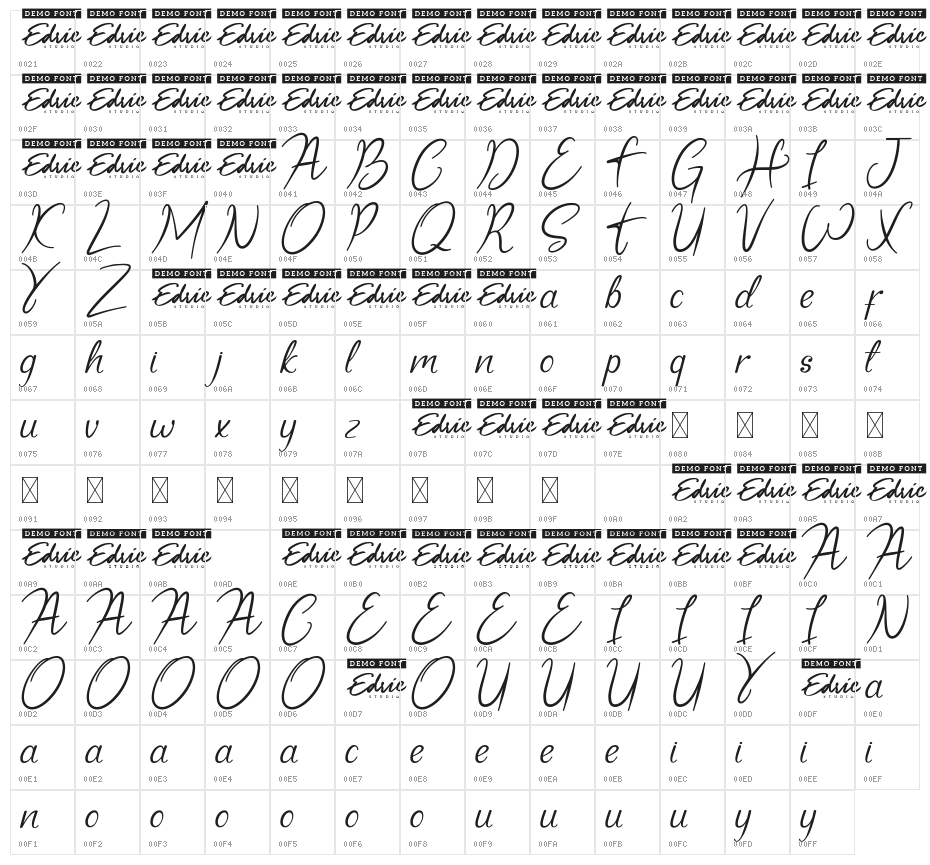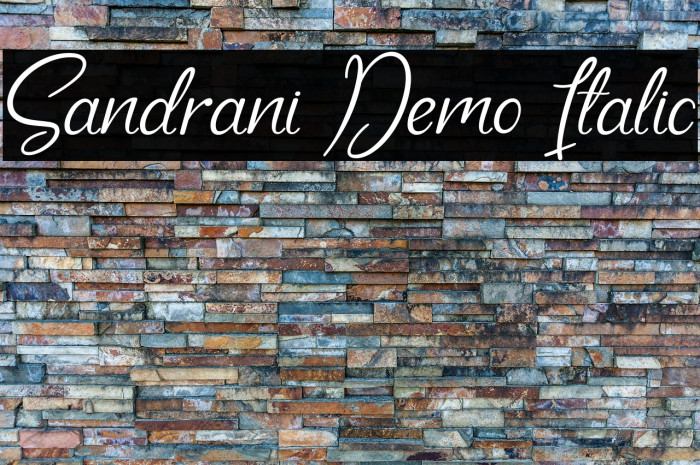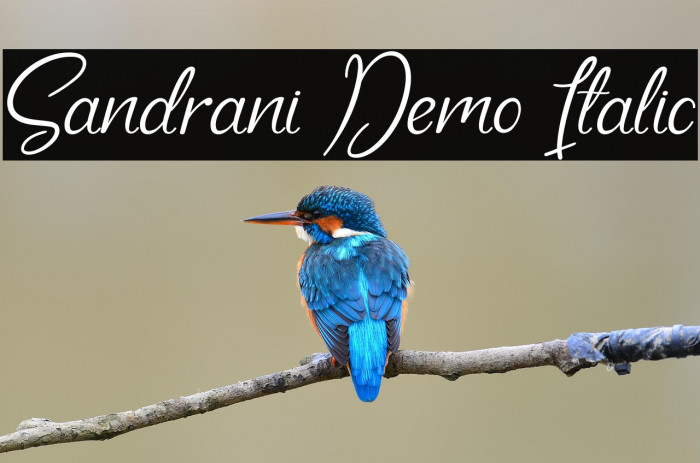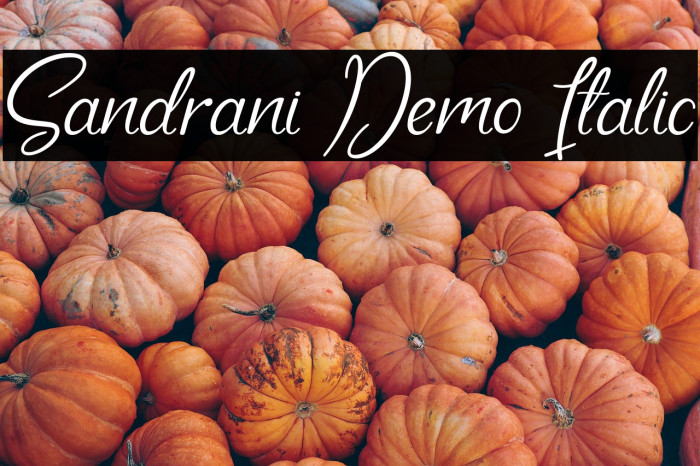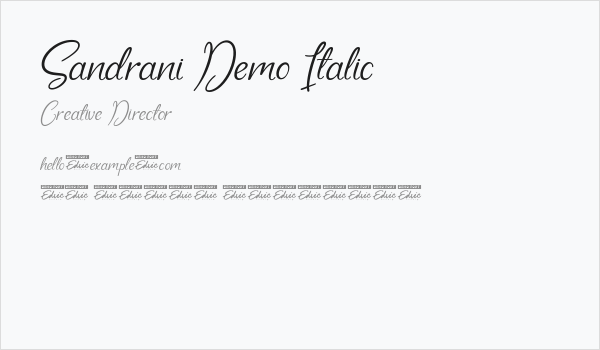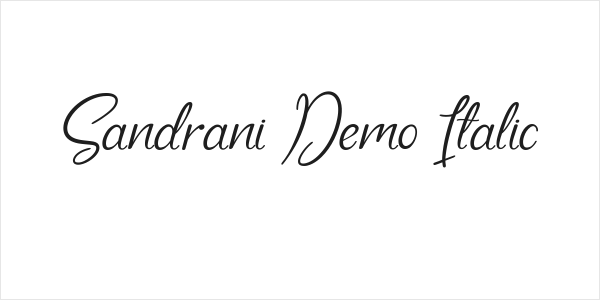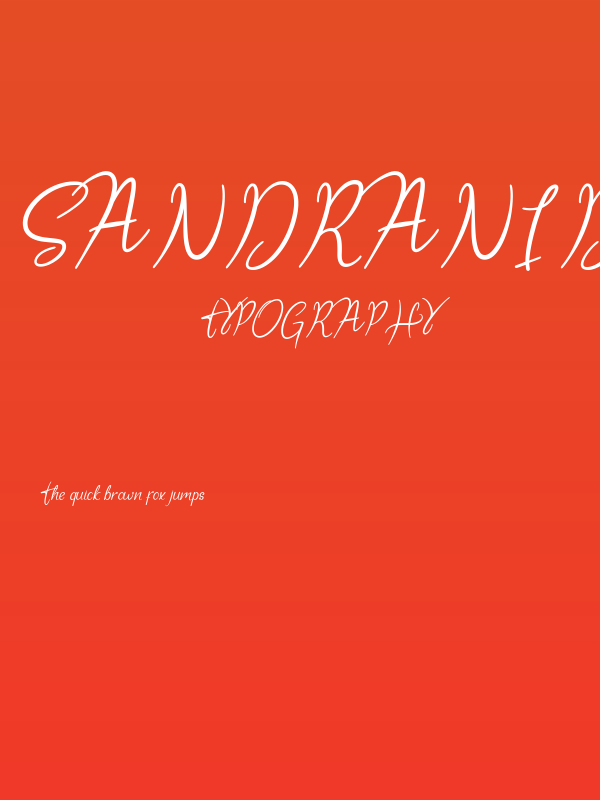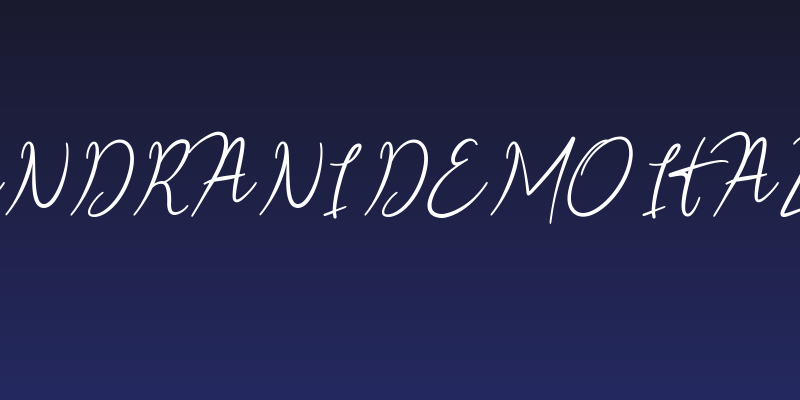
Sandrani Demo Italic Font
Sandrani Demo Italic Description
This font exhibits a flowing, cursive style with a distinct italic slant, giving it a dynamic and elegant appearance. The uppercase letters are tall and slender, with graceful curves and loops that enhance its sophisticated look. The lowercase letters maintain a consistent style, featuring smooth, connected strokes that suggest a handwritten quality. The numerals and special characters are crafted to match the overall aesthetic, ensuring a cohesive visual experience. This font's design is ideal for projects that require a touch of elegance and personal flair.
| Overall Style | Elegant, Handwritten |
| Proposed Projects | Ideal for wedding invitations, greeting cards, personal branding, and elegant logo designs. |